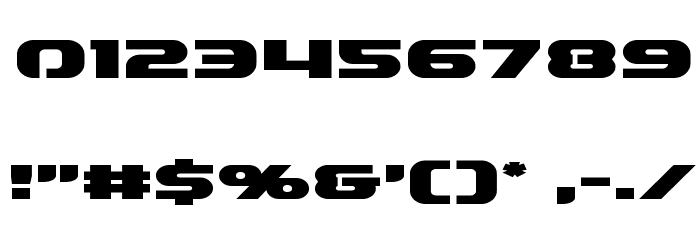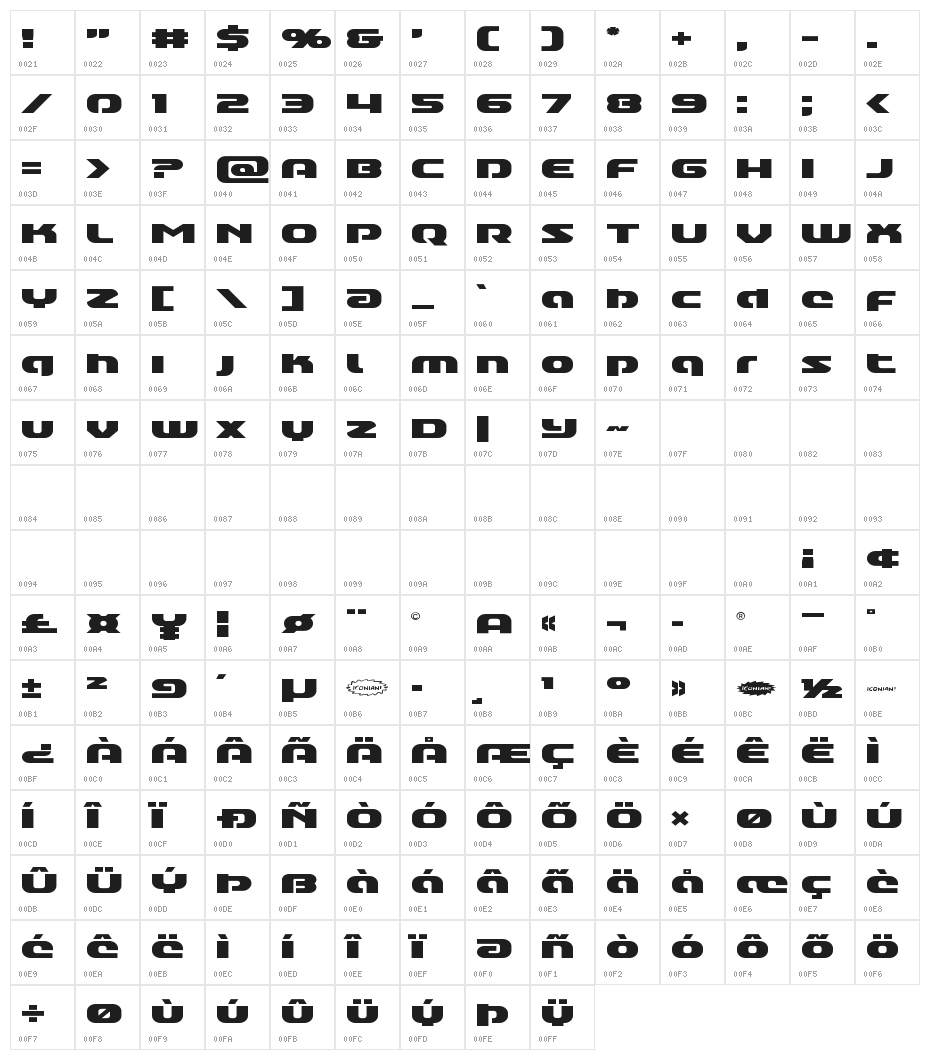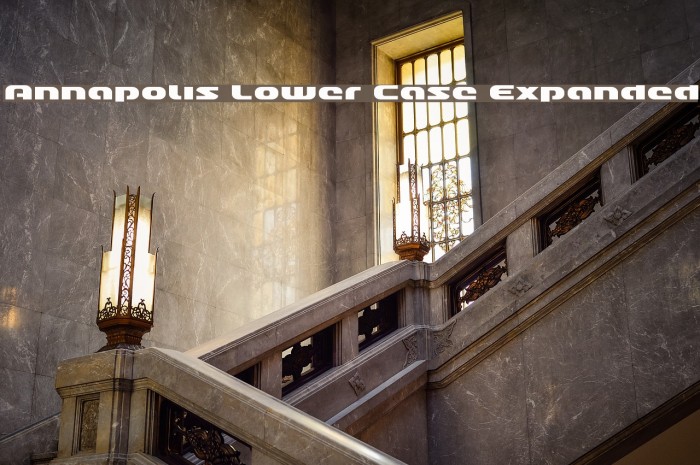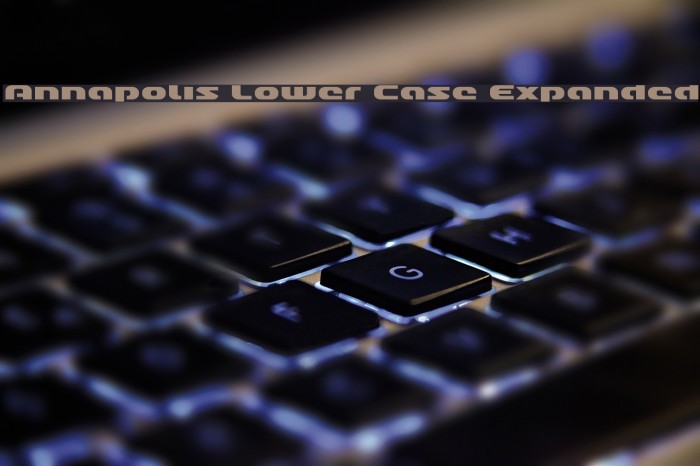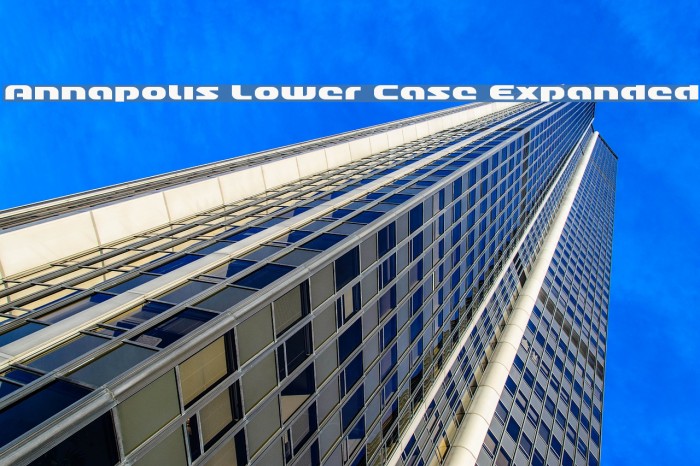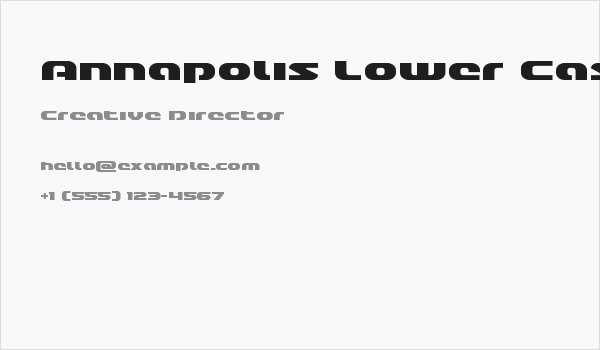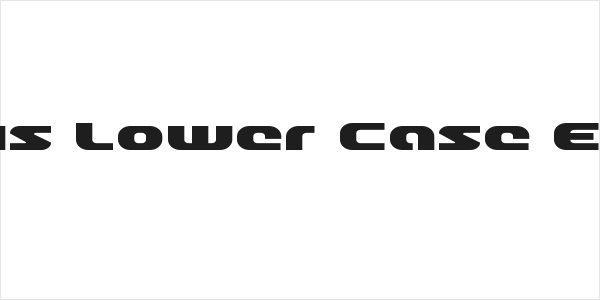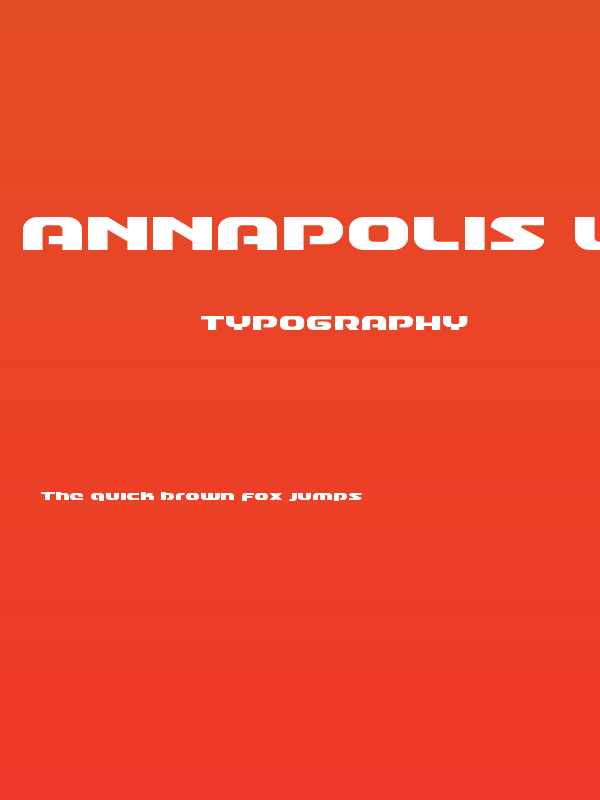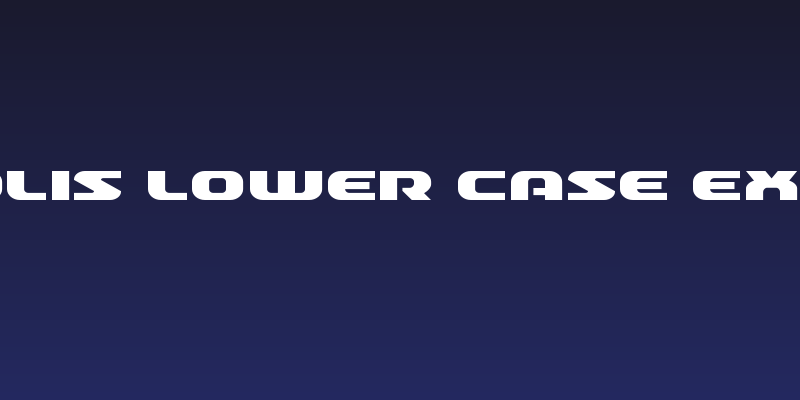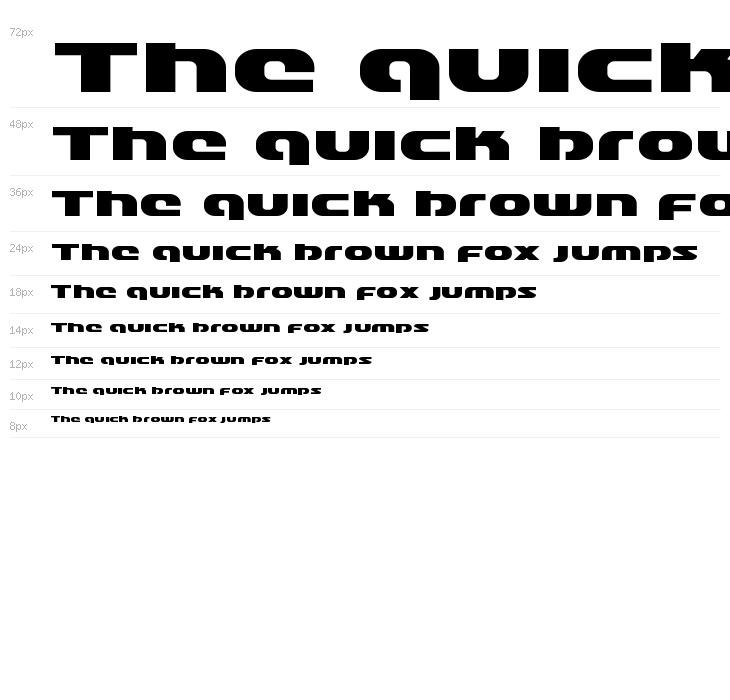
Annapolis Lower Case Expanded Font
Annapolis Lower Case Expanded Description
This font features a bold and modern design with a futuristic flair. The characters are wide and have a strong presence, making them ideal for attention-grabbing headlines. The geometric shapes and clean lines provide a sense of stability and strength. The uppercase and lowercase letters maintain a consistent style, while the numbers and special characters complement the overall aesthetic. The font's expanded width allows for a unique and impactful visual appeal.